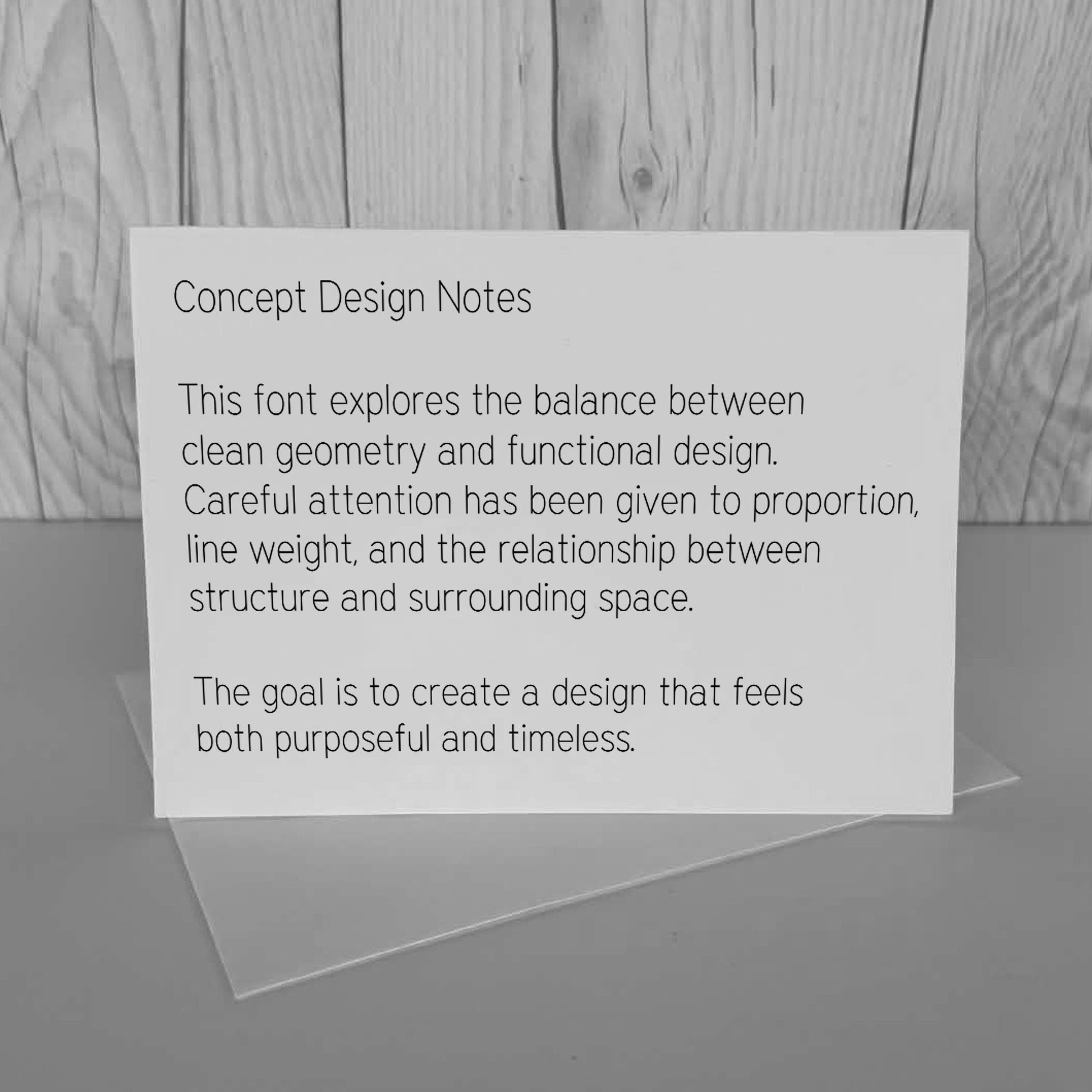
SLF Architect – Technical Single Line Font with Five Widths for Small Text
SLF Architect is a simple, understated single line print font that’s clean and classy for any occasion. It’s especially popular for small print-style text and precision projects where clarity matters.
This updated file includes five width variations: Regular, Semi-Condensed, Semi-Expanded, and Expanded—so you can fit text perfectly in tight spaces or open it up for readability.
• Small labels and precision layouts (machinists, tags, plates)
• Pen plotters and Foil Quill projects
• Cards, embossing, etching, and craft projects